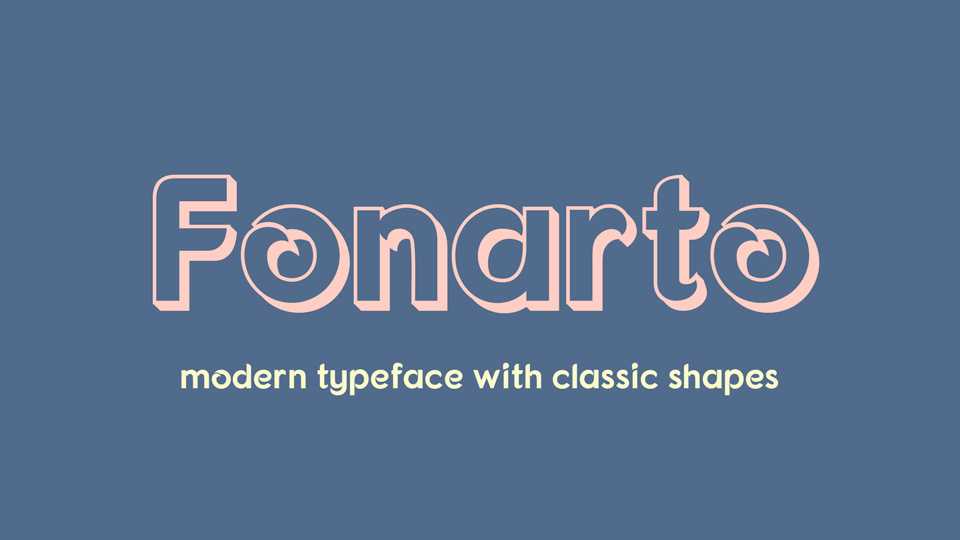
Download Fonarto font, is a sans serif typeface in two styles that combined classic shapes with decorative elements. It makes Fonarto has a modern style with classic impression.